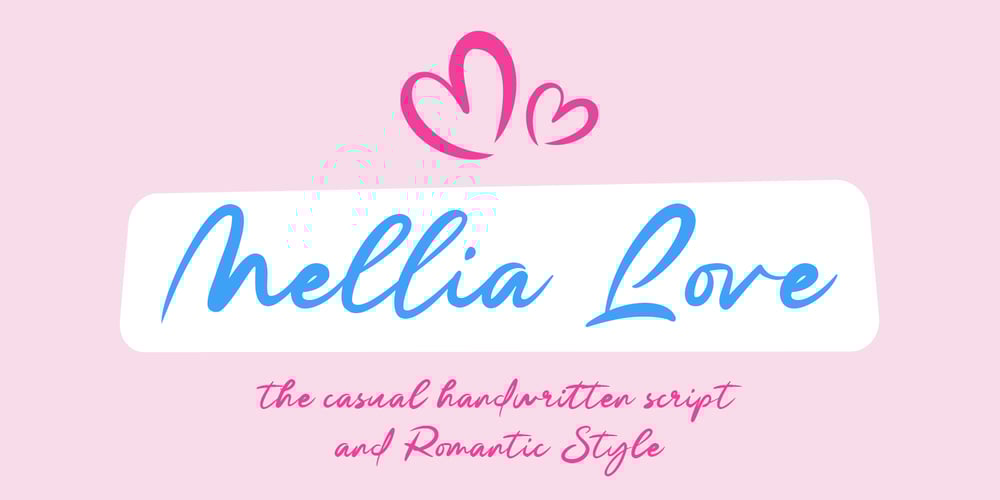
Mellia Love
Mellia Love font
Mellia Love Font Family was designed by khaidir and published by Gatype. Mellia Love contains 1 styles and family package options. The perfect choice for modern handwritten lettering in the 2025 Wedding Season.The Mellia Love font will look beautiful on handwritten wedding invitations, menus, modern wall art, instagram posts, quotes, and branding. Mellia Love includes a full set of Uppercase and Lowercase Basic Characters, Numbers, Punctuation, alternate sets and ligatures.Mellia Love is encoded with PUA Unicode, which allows full access to all additional characters without having to design special software. Mac users can use Font Book, and Windows users can use Character Map to view and copy the additional characters to paste into your favorite text editor/application.Thank you and happy designing 🙂 Enjoy!